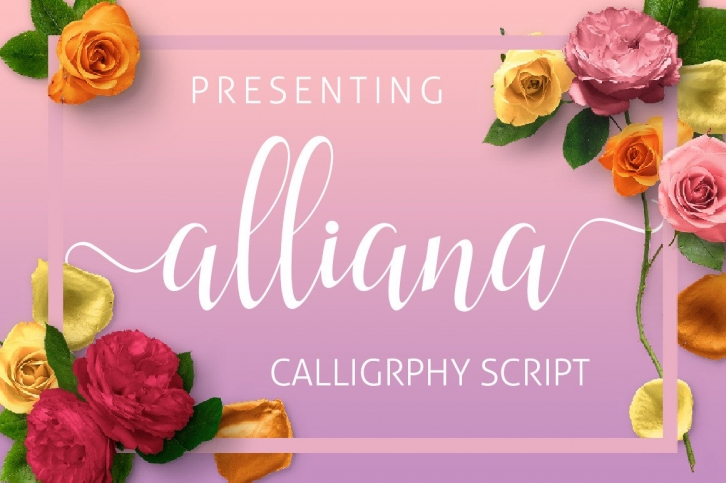
Alliana is a splendid handwritten font, beautifully carved in a fashionable and nicely flowing style. It’s a great choice for exquisite projects that need an authentic feel! This font is PUA encoded which means you can access all of the glyphs and swashes with ease!